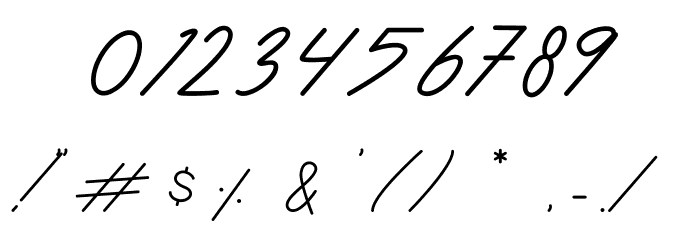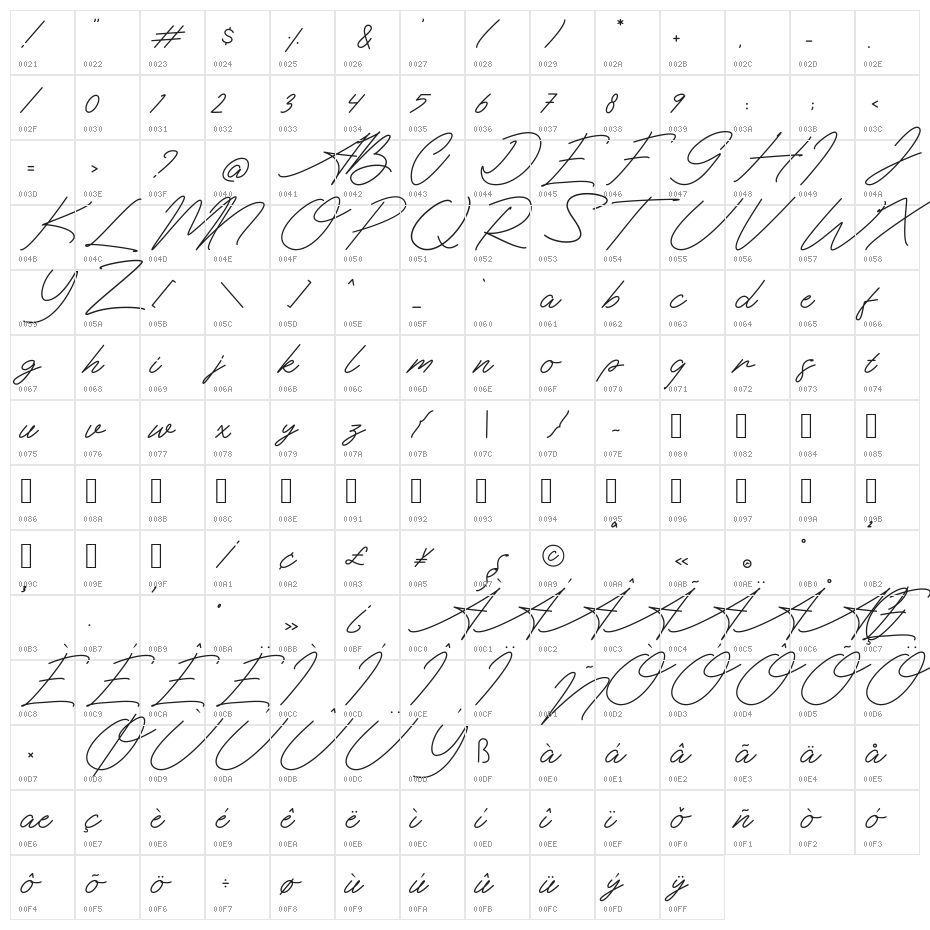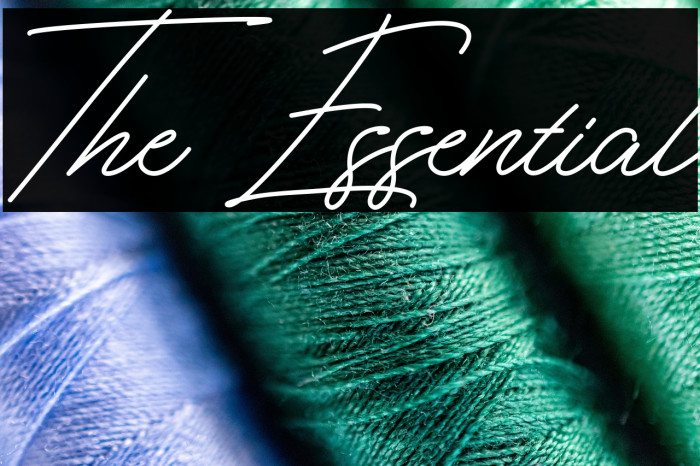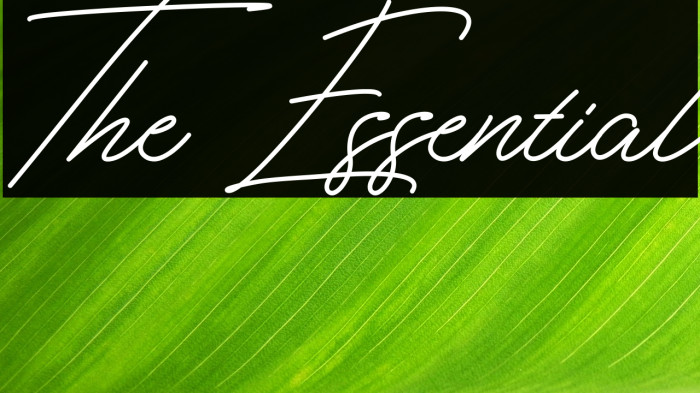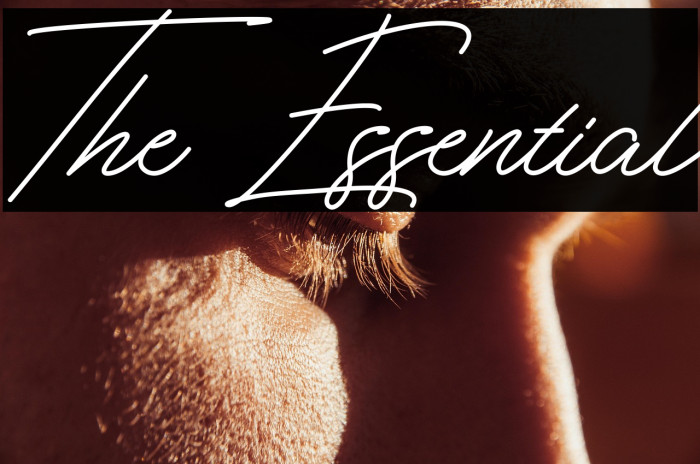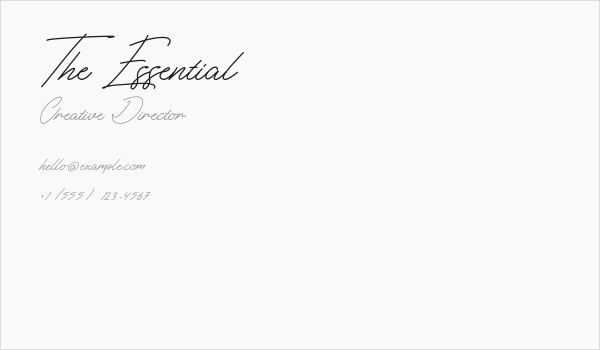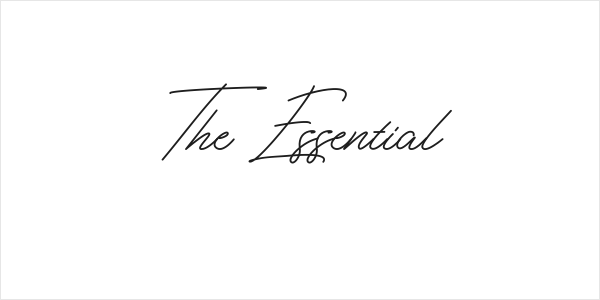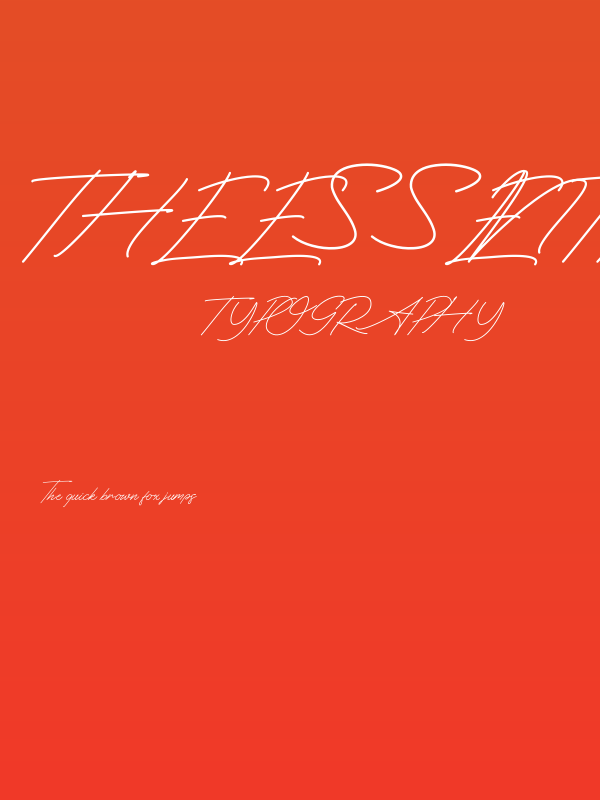
The Essential Font
The Essential Description
This font features a fluid and elegant script style, characterized by its smooth, flowing lines and cursive connections between letters. The uppercase letters exhibit a graceful, airy quality with elongated strokes, while the lowercase letters maintain a consistent rhythm and balance. The numerals are designed with a similar fluidity, ensuring harmony across all characters. Special characters are seamlessly integrated, maintaining the overall aesthetic. This font exudes sophistication and is ideal for projects that require a touch of elegance and personal flair.
| Use Case | Logos, Invitations, Personal Stationery |
| Proposed Projects | Ideal for wedding invitations, elegant branding, personal stationery, and artistic projects. |